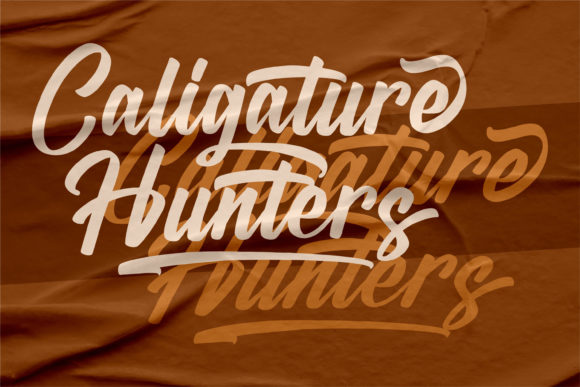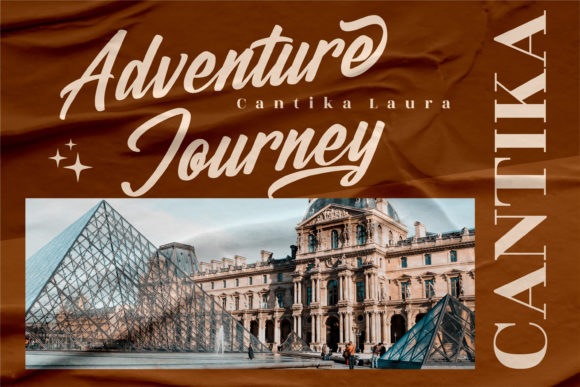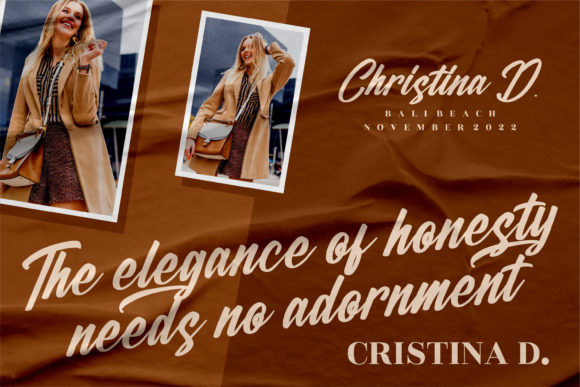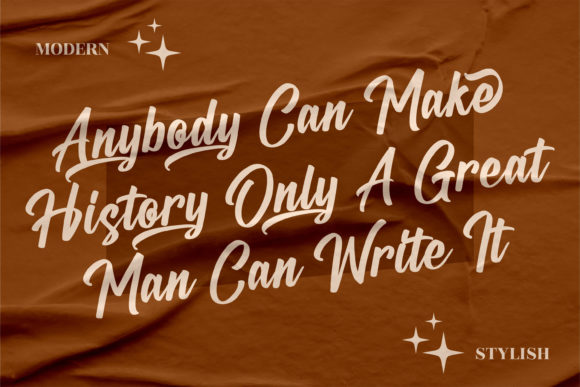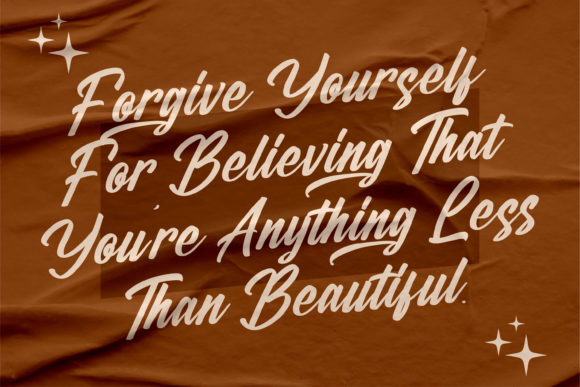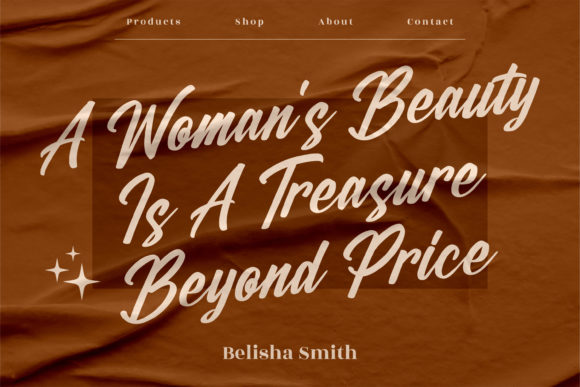
The Perfect Font for Making a Lasting Impression
Have you ever stared at a blank page, trying to come up with the perfect phrase to convey your message? The cursor blinks, and your mind goes blank. But what if you had the perfect tool to bring your words to life? For designers and writers alike, finding the right font can be a game-changer.
Enter the Caligature Hunters Font, an elegant and bold handwritten font that exudes confidence, authenticity, and charm. This stunning font is not just a pretty face – it’s also PUA encoded, making it easy to access its amazing glyphs and ligatures. Whether you’re crafting a logo, creating a marketing campaign, or simply want to add some personality to your writing, the Caligature Hunters Font is the perfect companion for delivering your message with style and sophistication.
Caligature Hunters Font Key Features
- Unique Characteristics: Caligature Hunters Font features a unique, handwritten style with a mix of cursive and print elements, giving it a distinctive and elegant look.
Designer Review: Caligature Hunters Font
First off, let me say that I’m a big fan of the aesthetic Caligature Hunters Font brings to the table. ✨ The unique blend of modern and vintage elements creates a striking visual identity that’s sure to grab attention. The font’s organic feel and imperfect lines add a touch of personality that’s hard to find in more polished, corporate fonts.
One of the standout features of Caligature Hunters is its versatility. ✨ It’s just as comfortable in titles and headings as it is in body text, making it a great choice for designers who need a font that can adapt to different contexts. The font also comes in a range of weights and styles, giving designers plenty of options for customizing their designs.
- ⚠️ Inconsistent spacing: I’ve noticed that the font can be a bit finicky when it comes to spacing between letters, which can affect readability in longer blocks of text.
- ⚠️ Limited language support: As with many fonts, Caligature Hunters may not have full support for all languages, which could be a problem for designers working on international projects.
Overall, I think Caligature Hunters is a solid choice for designers looking for a unique and versatile font. While it’s not perfect, its strengths far outweigh its weaknesses, and with a bit of careful planning, it can be a real showstopper in the right design.
Tip: Use Caligature Hunters Font for titles and headings to add a touch of elegance to your design.
Tip: Use Caligature Hunters Font for handwritten-style text effects, such as signatures or quotes.
Tip: Use Caligature Hunters Font for titles and headings to add a touch of sophistication to your presentation or document.
Caligature Hunters Font is suitable for:
- Handwritten-style titles and headings.
- Signatures and quotes.
- Artistic and creative designs.